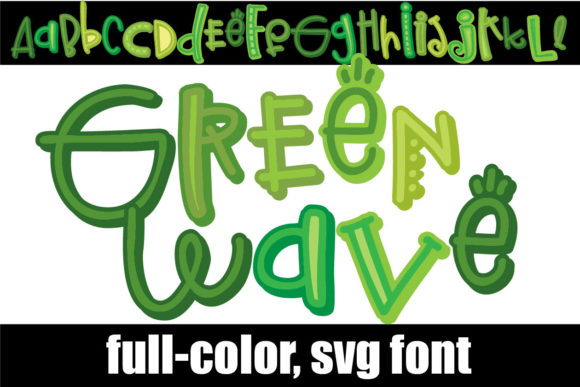
Unleash your creativity with Green Wave Font, a full-color font that's perfect for adding a touch of playfulness and charm to your designs. Each character dances with multiple shades of green, reminiscent of a vibrant forest or a playful meadow. With Green Wave Font, your words will come alive, capturing the essence of nature's beauty in every stroke.
Immerse yourself in a world of color and let your imagination run wild. Green Wave Font is not just a collection of letters; it's an invitation to explore the depths of your artistic expression. Whether you're creating whimsical logos, enchanting invitations, or eye-catching social media graphics, Green Wave Font will transform your designs into masterpieces that captivate and inspire.
Discover the hidden depths of Green Wave Font with its second version of each letter, accessible through your system's character map. This ingenious feature opens up a whole new realm of creative possibilities, allowing you to layer letters, mix and match colors, and create stunning effects that will make your designs stand out from the crowd.
Green Wave Font is fully PUA encoded, ensuring effortless access to all its glyphs and swashes. Unleash your creativity without limitations, exploring the font's full potential to craft designs that resonate with your audience.
Join the creative revolution and embrace the beauty of Green Wave Font. Let your designs bloom with color, your words dance with joy, and your imagination soar to new heights. Experience the magic of Green Wave Font today and unlock a world of endless possibilities.